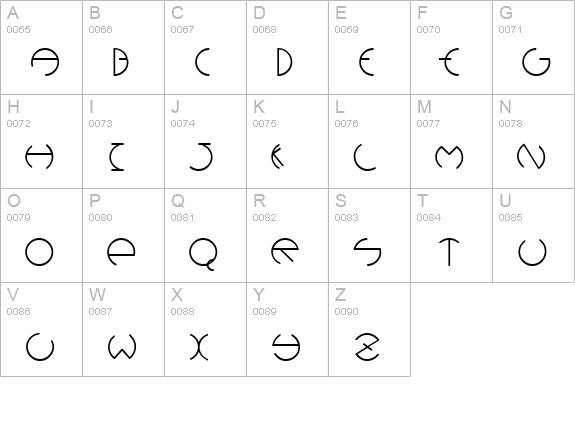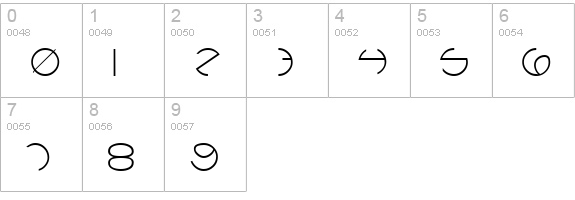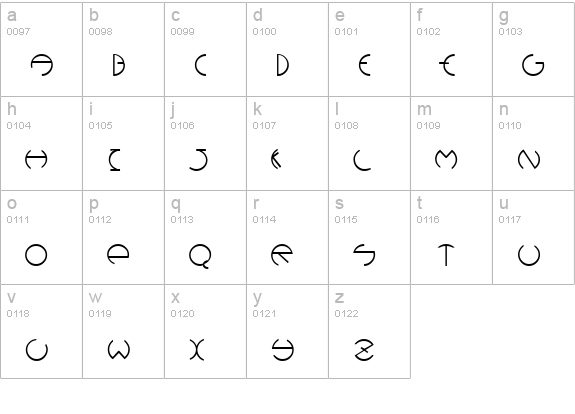
Debevic Font Details
Debevic font is a modern and stylish typeface that exudes elegance and sophistication. With its sleek lines and clean design, this font is perfect for a wide range of design projects, from branding to advertising to web design. The unique curves and sharp angles of Debevic font give it a contemporary feel that is sure to make your text stand out. What's even better is that Debevic font is available for free download at FontsMarket.com. This means that you can easily add this beautiful font to your collection without any cost. Don't miss out on the opportunity to enhance your designs with the stunning Debevic font, available for free and ready to take your projects to the next level.